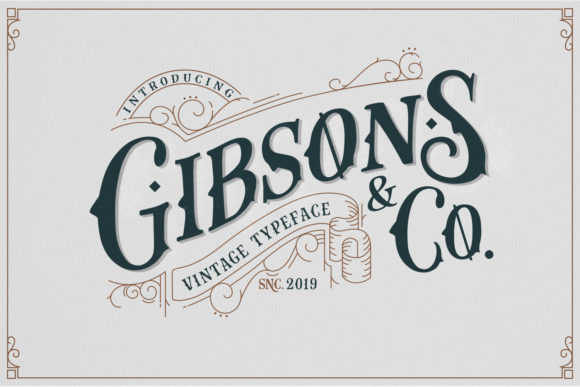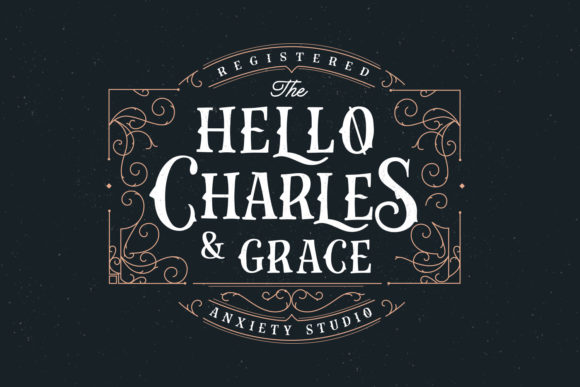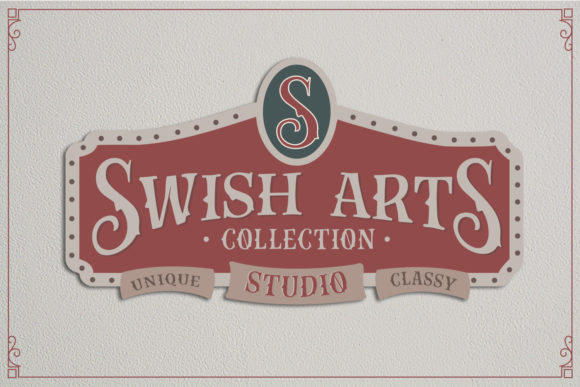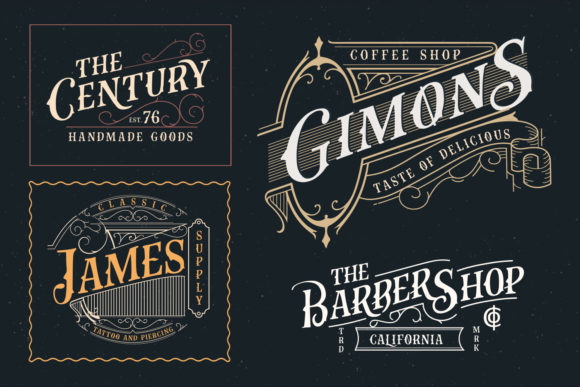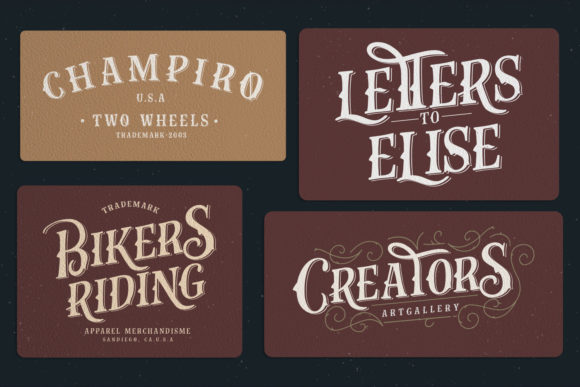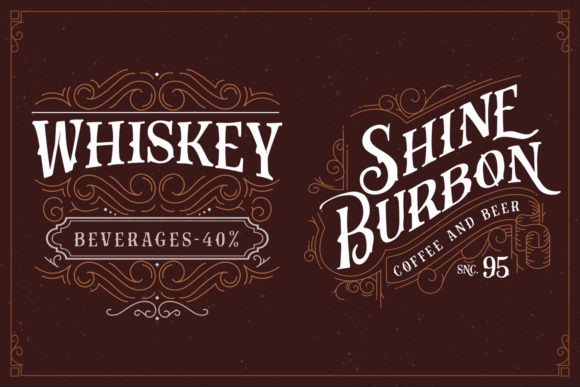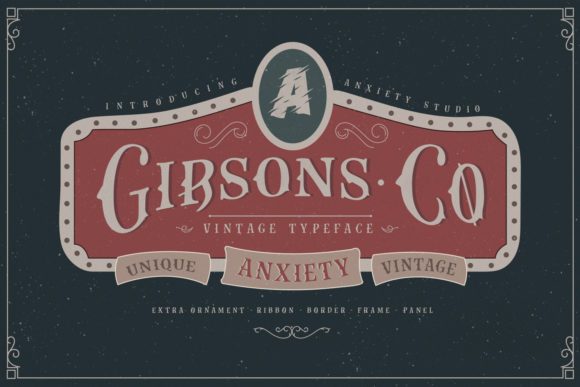
Discover the Timeless Charm of Gibsons Co Font: Elevate Your Designs with this Vintage Masterpiece
In the realm of typography, few fonts manage to capture the essence of vintage charm while being versatile enough for modern design applications. Gibsons Co Font stands out as a beacon of elegance and sophistication, offering designers and crafters a unique tool to elevate their projects. This beautifully crafted vintage font is not just a typeface; it’s an experience, a statement piece that can transform any design from ordinary to extraordinary.
The Essence of Gibsons Co Font
Gibsons Co is a masterfully designed display font that embodies the spirit of classic typography with a contemporary twist. Its vintage appeal is meticulously crafted to bring a touch of nostalgia and luxury to any design project. Whether you’re working on branding, packaging, advertising, or digital content, Gibsons Co Font offers the perfect blend of style and functionality.
What Sets Gibsons Co Apart
So, what makes Gibsons Co Font a must-have in your typography arsenal? Here are a few key features that set it apart:
- Vintage Aesthetic: Gibsons Co boasts a unique vintage look that is both timeless and trendy. Its classic design ensures that your work stands out with a distinctive character.
- Versatility: This font is incredibly versatile, suitable for a wide range of design projects from logos and branding to posters, packaging, and more.
- Legibility: Despite its ornate appearance, Gibsons Co maintains excellent legibility, making it perfect for both headlines and body text.
- Extensive Bonuses: Gibsons Co comes with a plethora of additional bonuses, including alternative characters, ligatures, and stylish embellishments, which provide designers with a rich palette of creative options.
Beyond Typography: The Bonuses
Gibsons Co Font is more than just a beautiful typeface; it’s a comprehensive design toolkit. The package includes a variety of bonuses designed to take your design to the next level:
- Alternative Characters: Offers variations of letters and numbers, allowing for diverse styling options within a single font.
- Ligatures: Automatically combines certain character pairs to create visually appealing and harmonious text.
- Stylish Embellishments: Includes decorative elements that can be used to add flair to your designs, from borders to dividers.
Why Choose Gibsons Co Font?
Choosing Gibsons Co Font for your design projects means opting for quality, versatility, and a dash of vintage charm. Here are a few compelling reasons to make Gibsons Co your go-to font:
- Unique Designs: Stand out in a crowded design landscape with a font that is both distinctive and memorable.
- Time-Saving: With its extensive range of characters and bonuses, Gibsons Co can significantly streamline your design process.
Gibsons Co Font is a beautiful vintage font that offers more than just a classic look; it provides a comprehensive design solution for creatives. With its masterful design, extensive bonuses, and versatile application, it’s a true must-have for designers and crafters looking to elevate their projects. Whether you’re aiming to create stunning branding, captivating advertisements, or unique craft projects, Gibsons Co Font is your key to unlocking a world of creative possibilities.